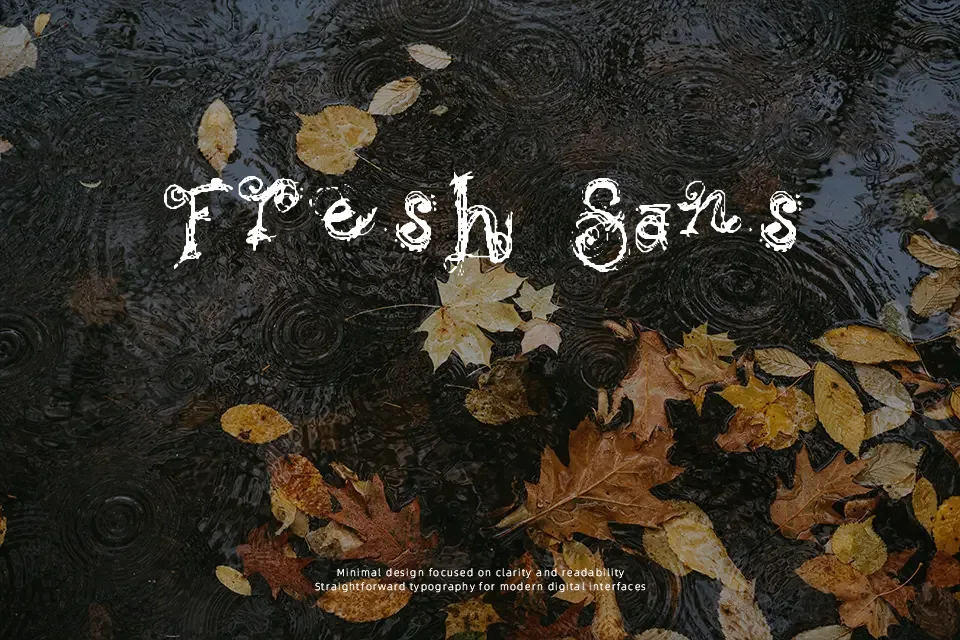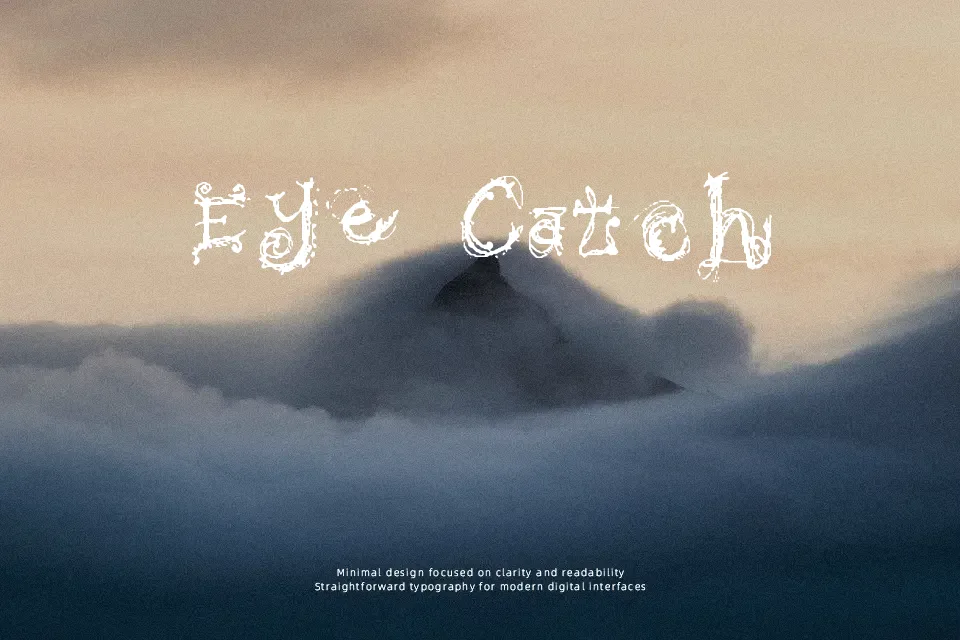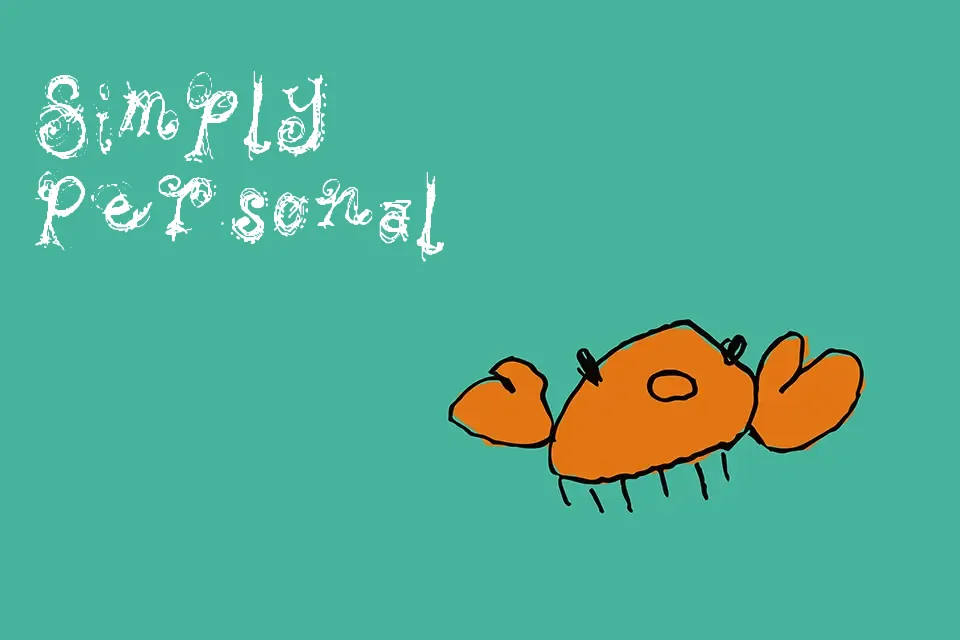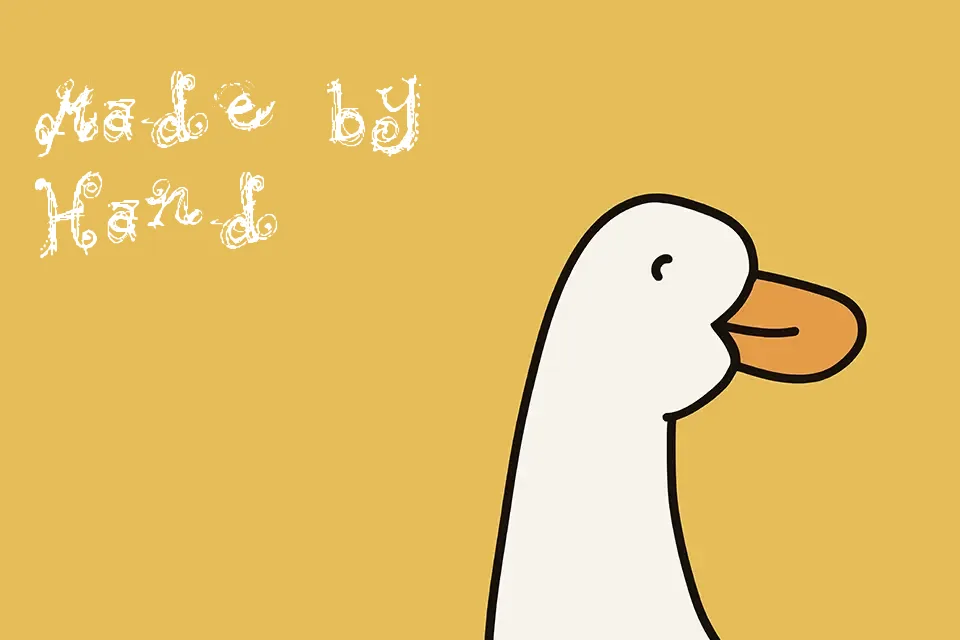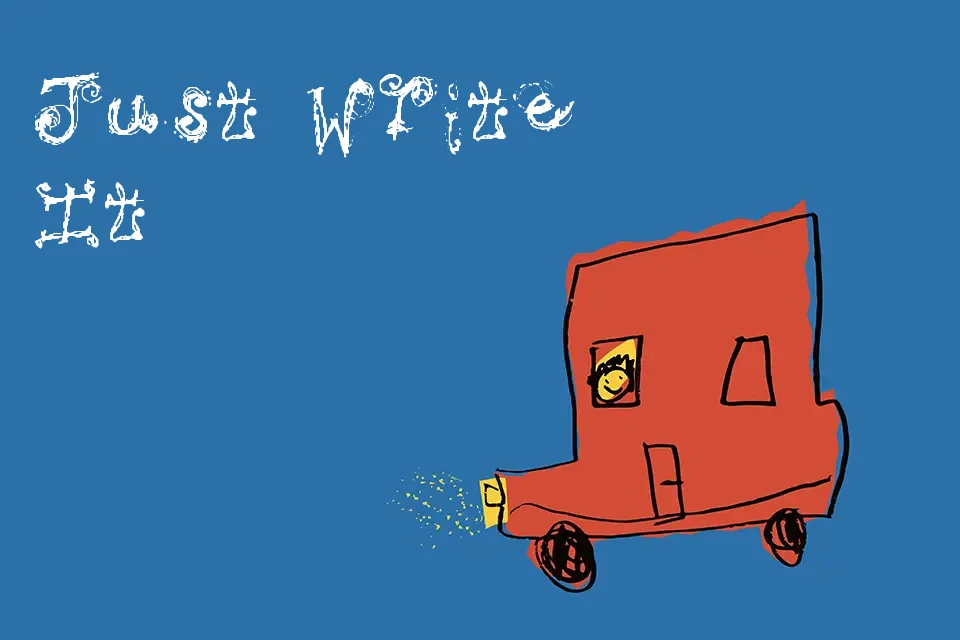
Bipolar Braden Font
Designed by Sarah Braden
Bipolar Braden is a delightfully eclectic decorative font that thrives on playful chaos. Its visual structure features bouncy baselines, whimsical curls, and a distinct hand-drawn unevenness that delivers a casual, energetic charm. The unpredictable letterforms mix thin looping strokes with varying weights, creating a highly expressive style impression. This curly typeface excels when applied to quirky boutique branding, imaginative children’s book covers, or informal party invitations where personality overrides strict legibility. While the font works beautifully for capturing youthful whimsy, its raw irregularities make it unsuitable for dense body copy or formal corporate documents that require structured reading ease. Compared to polished script fonts, Bipolar Braden offers a uniquely unrefined, artistic edge.
Quirky children’s book titles
Informal event invitations
Playful boutique branding
Expressive social media graphics
Professional corporate documents
Dense editorial body text
Minimalist tech interfaces
Perfect for branding, headline, and invitation, with a artistic and decorative style.